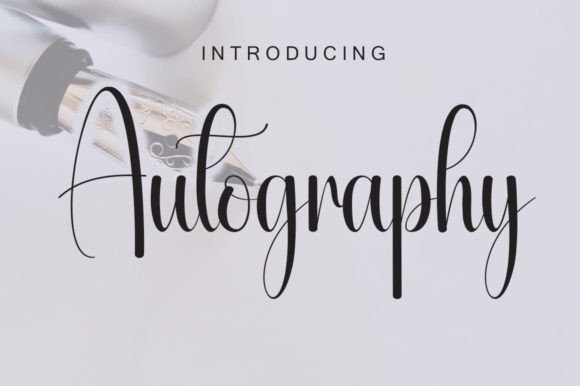
Unlock the Secrets of Whimsical Design with the Autography Font
Have you ever found yourself staring at a blank page, desperate for the perfect font to bring your design to life? You’ve tried the classics, but nothing seems to capture the essence of your creative vision. That’s where the Autography Font comes in – a handcrafted masterpiece with a cursive flair that’s sure to transport your designs to a world of elegance and sophistication.
As a designer, you’re always on the lookout for that special something that sets your work apart from the rest. The Autography Font delivers, infusing your projects with a joyful and romantic vibe that’s guaranteed to captivate your audience. Its delicate design is a breath of fresh air, elevating your creative endeavors to unprecedented heights and making it an invaluable addition to your design toolkit.
Autography Font Key Features
- Font Family: Autography is a script font family that offers a range of styles and weights.
- Unique Characteristics: Features a unique, handwritten feel with subtle brushstrokes and imperfections, adding a touch of personality to any design.
Review of Autography Font
As a designer, I was excited to dive into Autography Font, but my experience was a mixed bag. On the positive side, the font has some nice features that I’d like to highlight. ✨ The first thing that caught my attention was its elegant and sophisticated look, making it perfect for high-end branding and design projects. ✨ I also appreciate the wide range of weights available, which allows for flexibility in usage. ✨ The font’s OpenType features, such as ligatures and swashes, add a touch of sophistication and make it stand out from more basic fonts.
However, there are some limitations to consider. ⚠️ One of the main concerns is the font’s limited language support. If you’re working on a project that requires a specific language, you might find that Autography Font doesn’t have the necessary characters. ⚠️ Another issue is the font’s relatively high file size, which could lead to slower loading times on websites or longer processing times in design software. ⚠️ Lastly, I noticed that the font’s italic and bold styles can look a bit inconsistent, which might require some tweaking in your design.
Overall, I think Autography Font is a solid choice for designers looking for a high-end, elegant font. While it has its limitations, it’s still a great option for projects that require sophistication and refinement. With a bit of tweaking and attention to detail, Autography Font can be a valuable addition to any designer’s toolkit.
- Elegant and sophisticated look
- Wide range of weights available
- OpenType features, such as ligatures and swashes
- Limited language support
- High file size
- Inconsistent italic and bold styles
The Autography Font is ideal for:
- Personalized gifts and mementos
- Handwritten-style quotes and typography